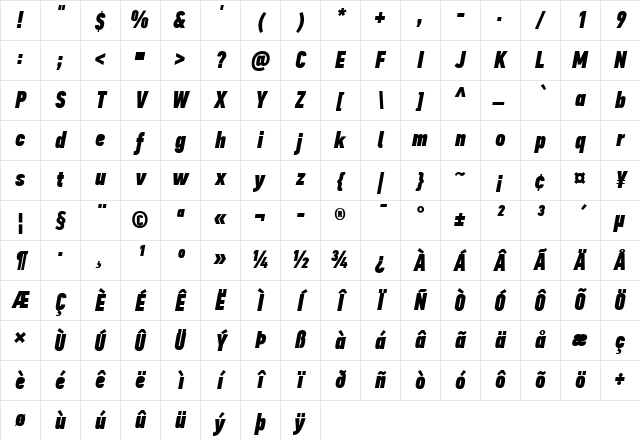
PF Din Text Comp Pro Extra Black Italic
Style: Extra Black Italic
Foundry: Parachute￿ Worldwide
Designer: Panos Vassiliou
Complete PF Din Text Comp Pro Extra Black Italic glyph index. Displaying only characters natively supported by PF Din Text Comp Pro Extra Black Italic font.
Design Context for PF Din Text Comp Pro
PF Din Text Comp Pro is a composed and adaptable typeface that performs quietly and consistently across a wide range of design contexts. The slanted form adds forward momentum and visual energy.
Pro Tip: Use PF Din Text Comp Pro for emphasis, pull quotes, and subheadings where its slanted energy can add rhythm to the layout.
Who designed the PF Din Text Comp Pro Extra Black Italic font?